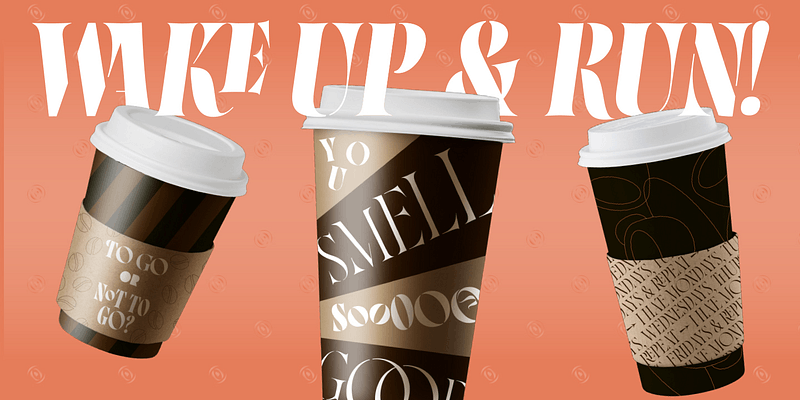
Norman Stencil Font Free Download
Norman Stencil Font Free Download is a bold and strong typeface that features a unique stencil design. The letterforms are sharp, with cut-out sections giving it a military, industrial, or utilitarian feel, making it perfect for projects that require an edgy and impactful look, such as posters, logos, branding, and merchandise.
Norman Stencil Font Free Download combines the boldness of a sans-serif font with the rugged, modern aesthetic of stencil lettering. Its sturdy design ensures excellent legibility while adding a distinctive, commanding presence to any project. It's an ideal choice for projects that need to evoke strength, precision, and professionalism.
Whether you're designing for construction, military-inspired branding, or urban-themed projects, Norman Stencil brings a modern, impactful flair to your typography.